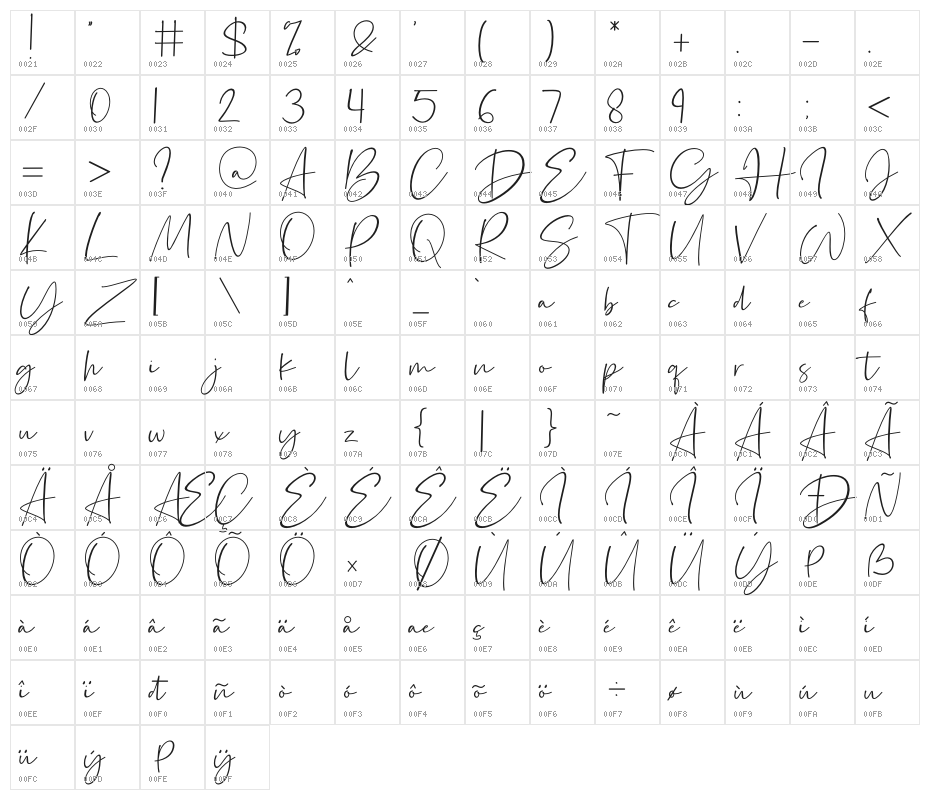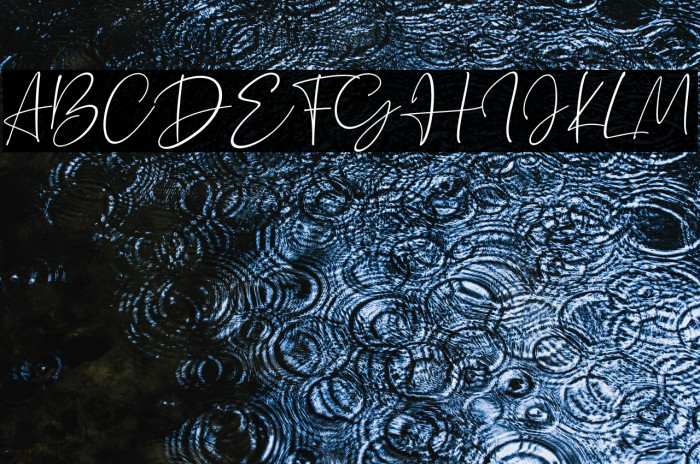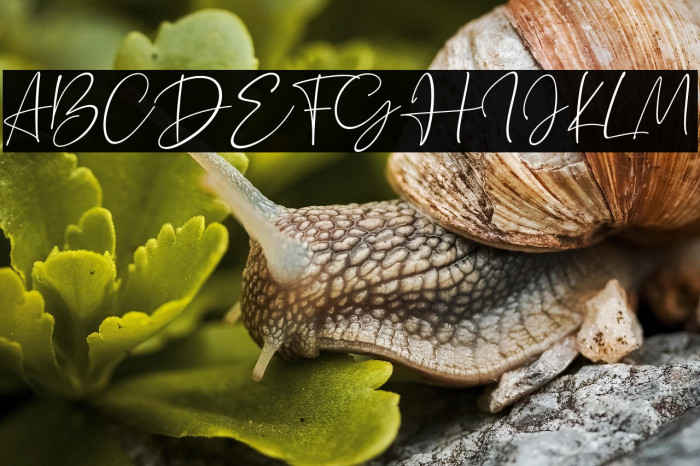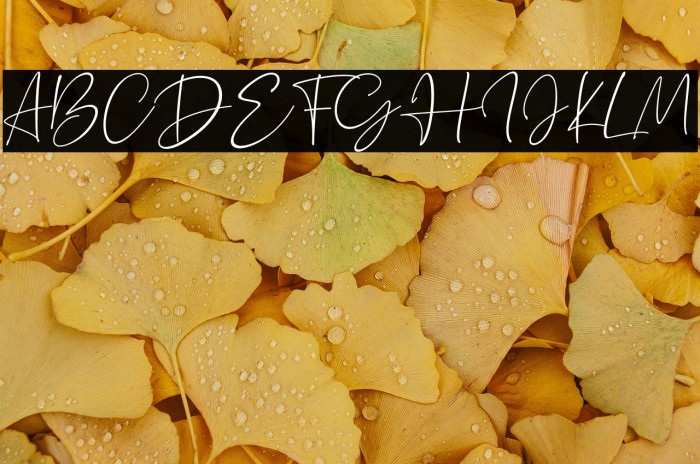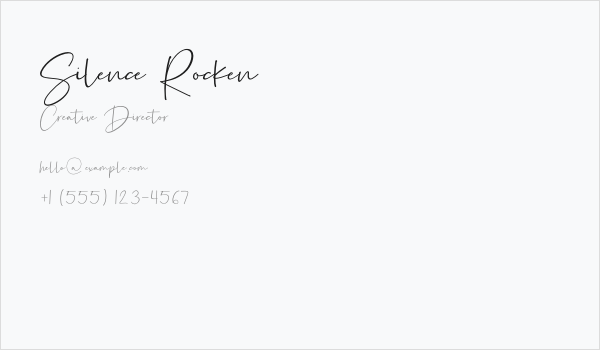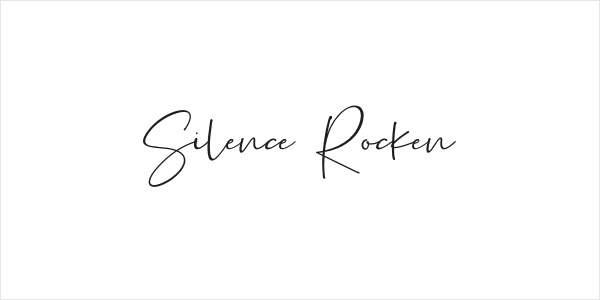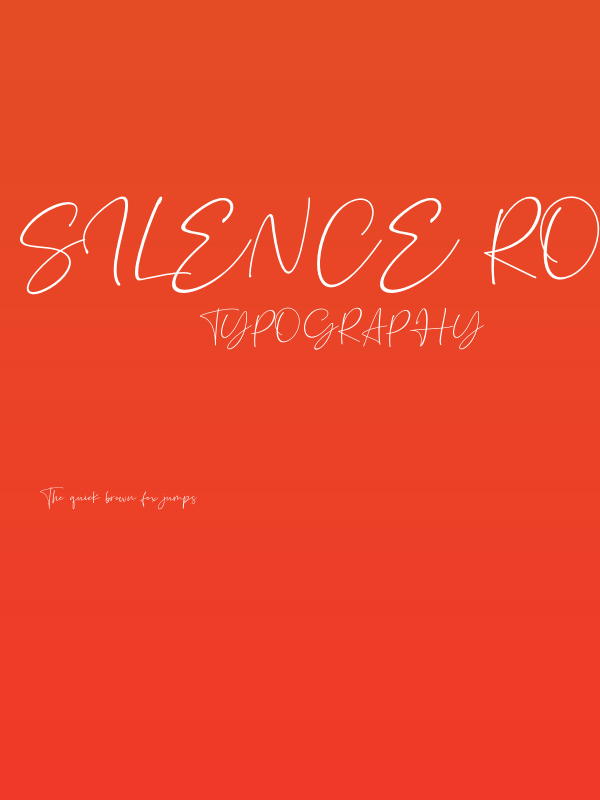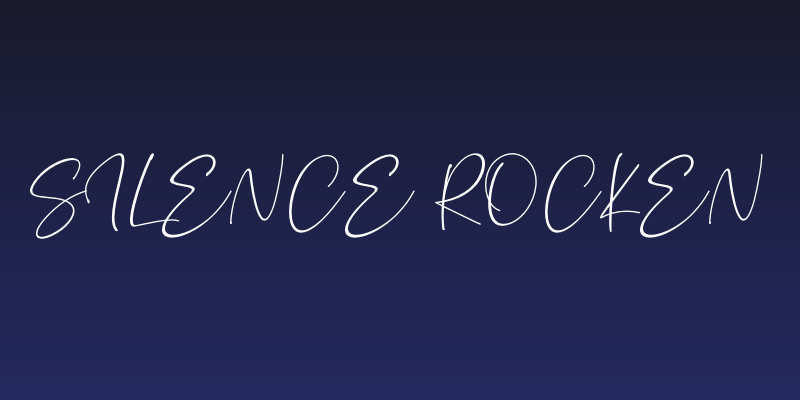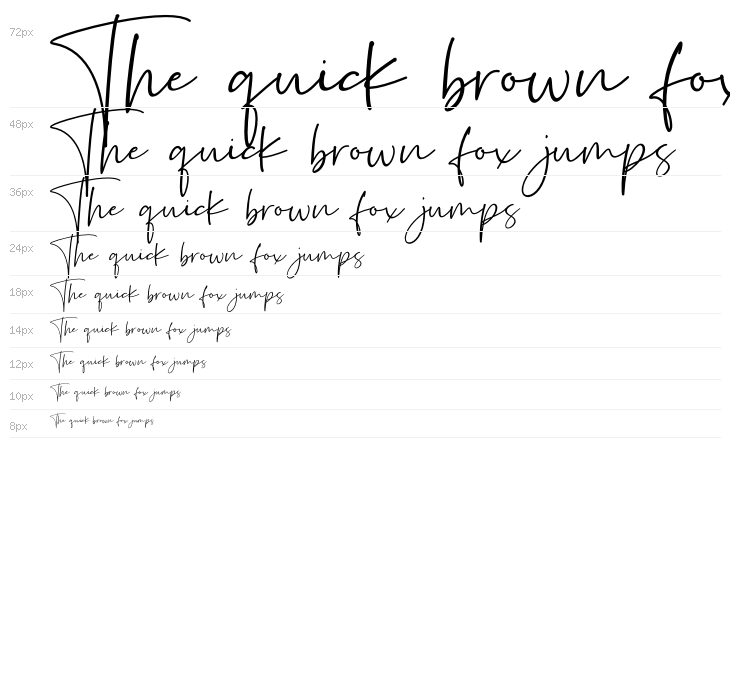
Silence Rocken Font
Silence Rocken Description
This font features a lively and energetic handwritten style, characterized by its fluid and continuous strokes. The uppercase letters are tall and slightly slanted, giving a sense of movement and dynamism. The lowercase letters maintain a consistent flow, with some letters featuring loops and curls that add a playful touch. The numerals are distinct and easy to read, while the special characters complement the overall style with their unique flair. This font's casual yet sophisticated appearance makes it versatile for various design projects.
| Proposed Projects | Ideal for greeting cards, invitations, personal branding, and social media graphics. |